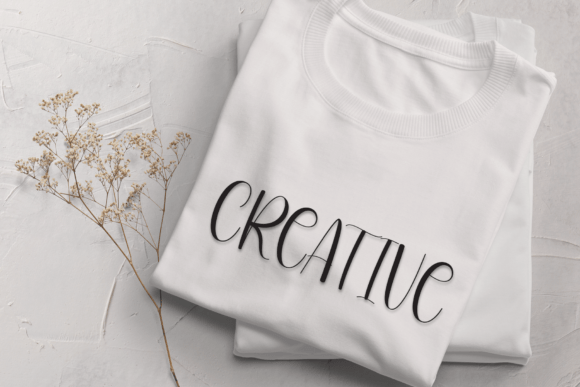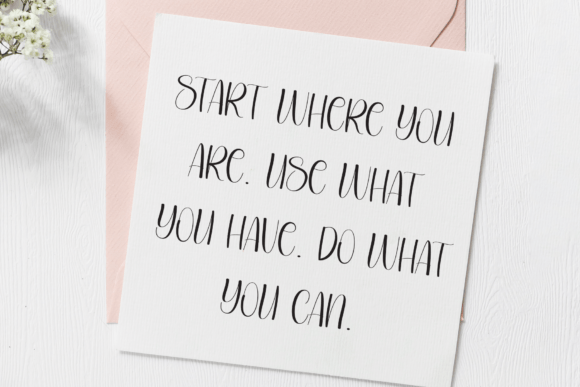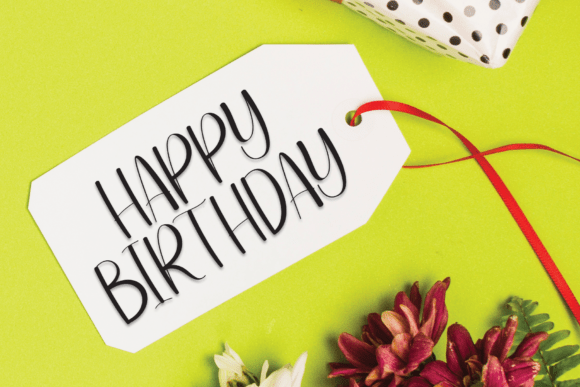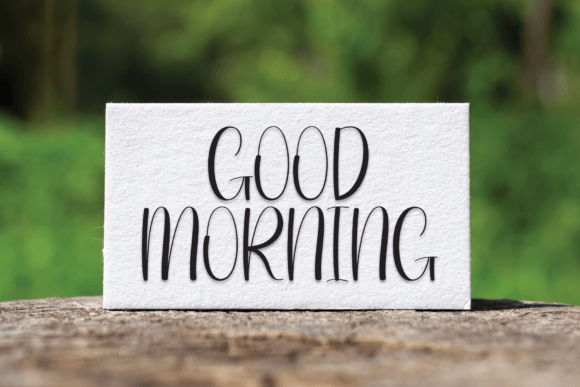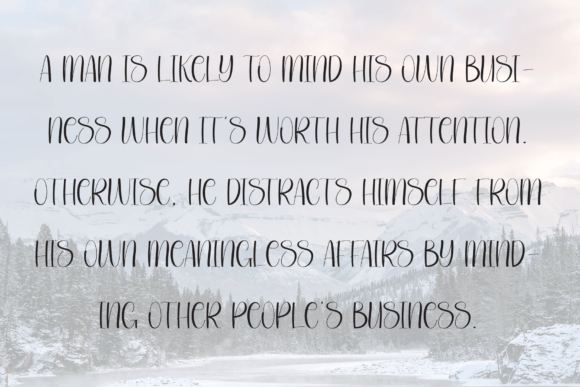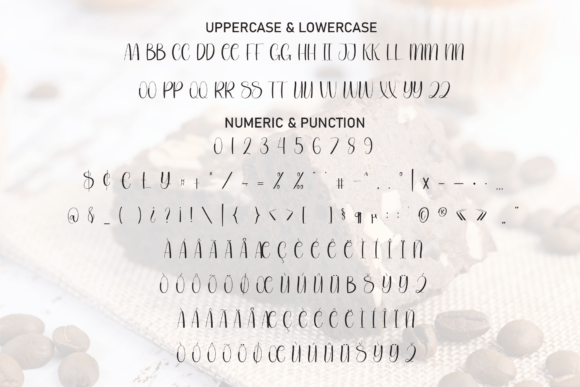
The Magic of Brownies Font: A Designer’s Delight
I’ll never forget the time I was working on a wedding invitation project, and my client asked me to create a design that exuded warmth and friendliness. I scoured the internet for the perfect font, but nothing seemed quite right. That was until I stumbled upon Brownies Font. This handwriting-inspired display font radiates a comforting warmth and friendly ambiance that’s perfect for a variety of designs. In this article, I’ll share my experience with Brownies Font, its unique features, and how to make the most of it in your designs.
A Personal Review of Brownies Font
• ✨ Unique and whimsical design that adds a touch of personality to any project
• ✅ Easy to read and understand, even in large and small sizes
• 🌈 Versatile and suitable for a wide range of designs, from wedding invitations to greeting cards and more
• 💫 Supports OpenType features, glyphs, and stylistic alternates for added creativity
While Brownies Font is an excellent choice for many designs, there are a few things to keep in mind:
• ⚠️ Some characters may not work well in very small sizes, so it’s best to use it for headlines or titles
• 🤔 Limited kerning options, which may require manual adjustments for optimal results
The Story Behind Brownies Font
Brownies Font was inspired by the warmth and comfort of homemade brownies. The designer wanted to create a font that would evoke feelings of friendliness and approachability. With its whimsical and playful design, Brownies Font is perfect for designers who want to add a touch of personality to their projects.
Font Name Brownies Font
Q: What type of designs is Brownies Font best suited for?
A: Brownies Font is perfect for wedding invitations, greeting cards, and other designs that require a touch of warmth and friendliness.
Q: Is Brownies Font easy to read?
A: Yes, Brownies Font is designed to be easy to read and understand, even in large and small sizes.